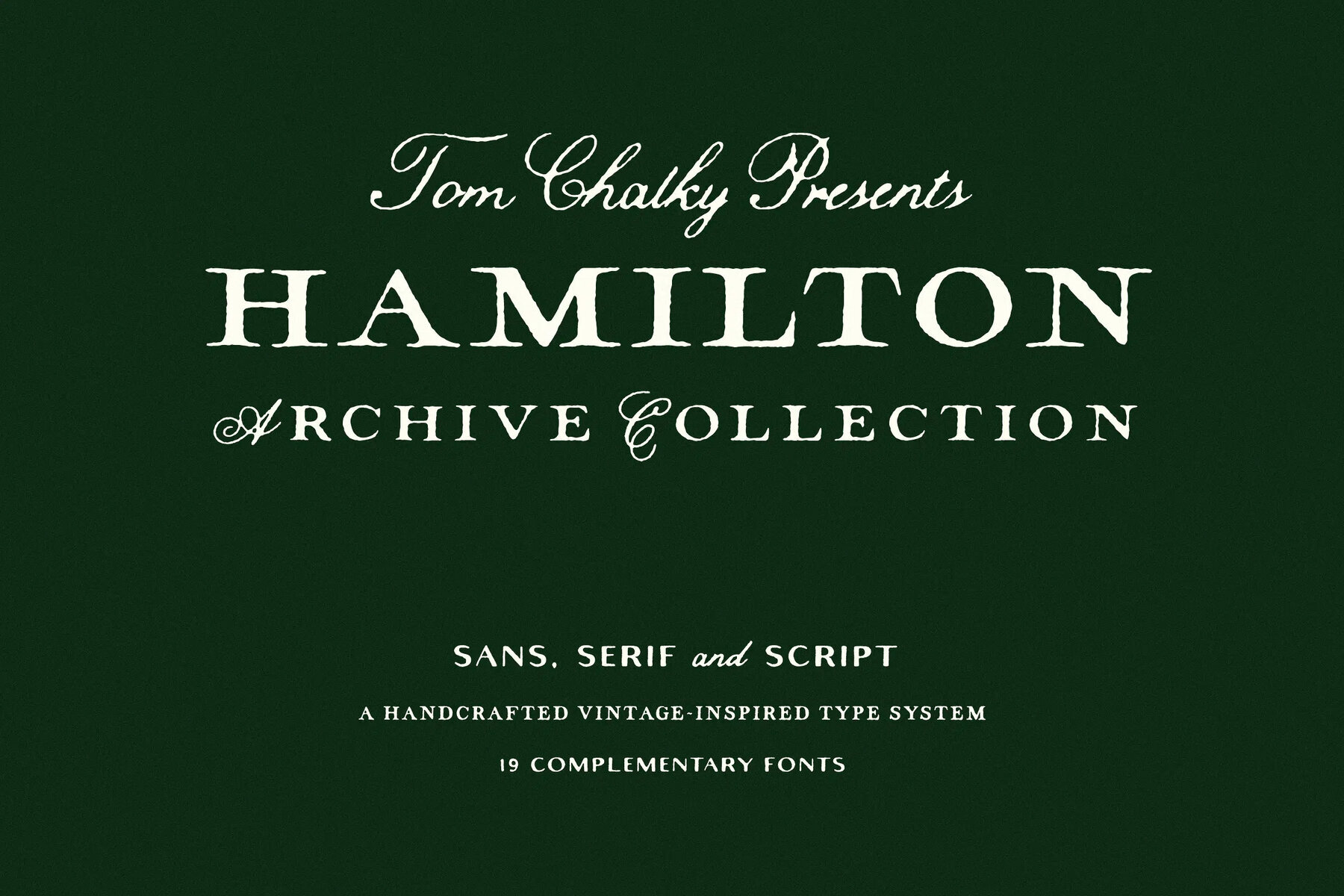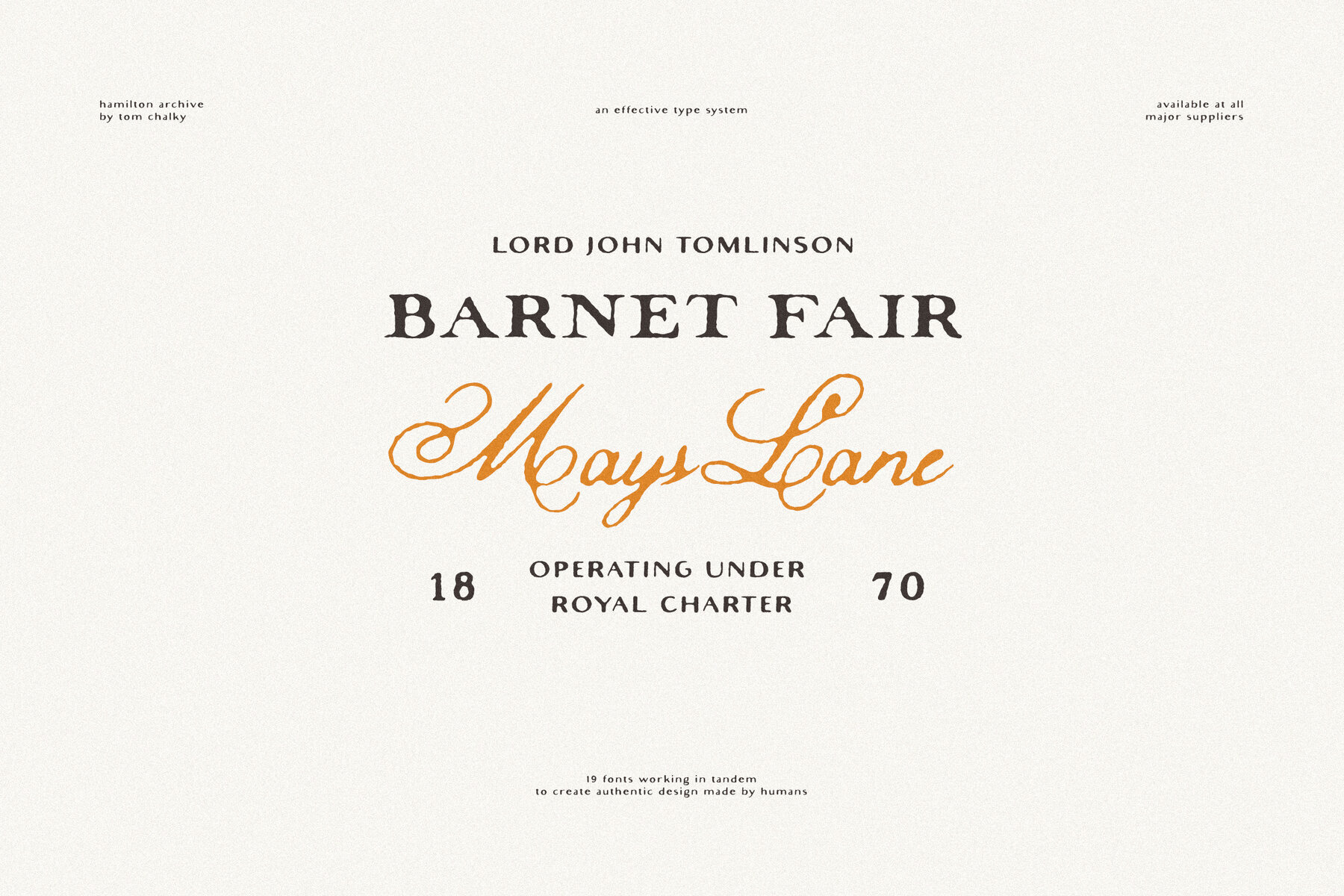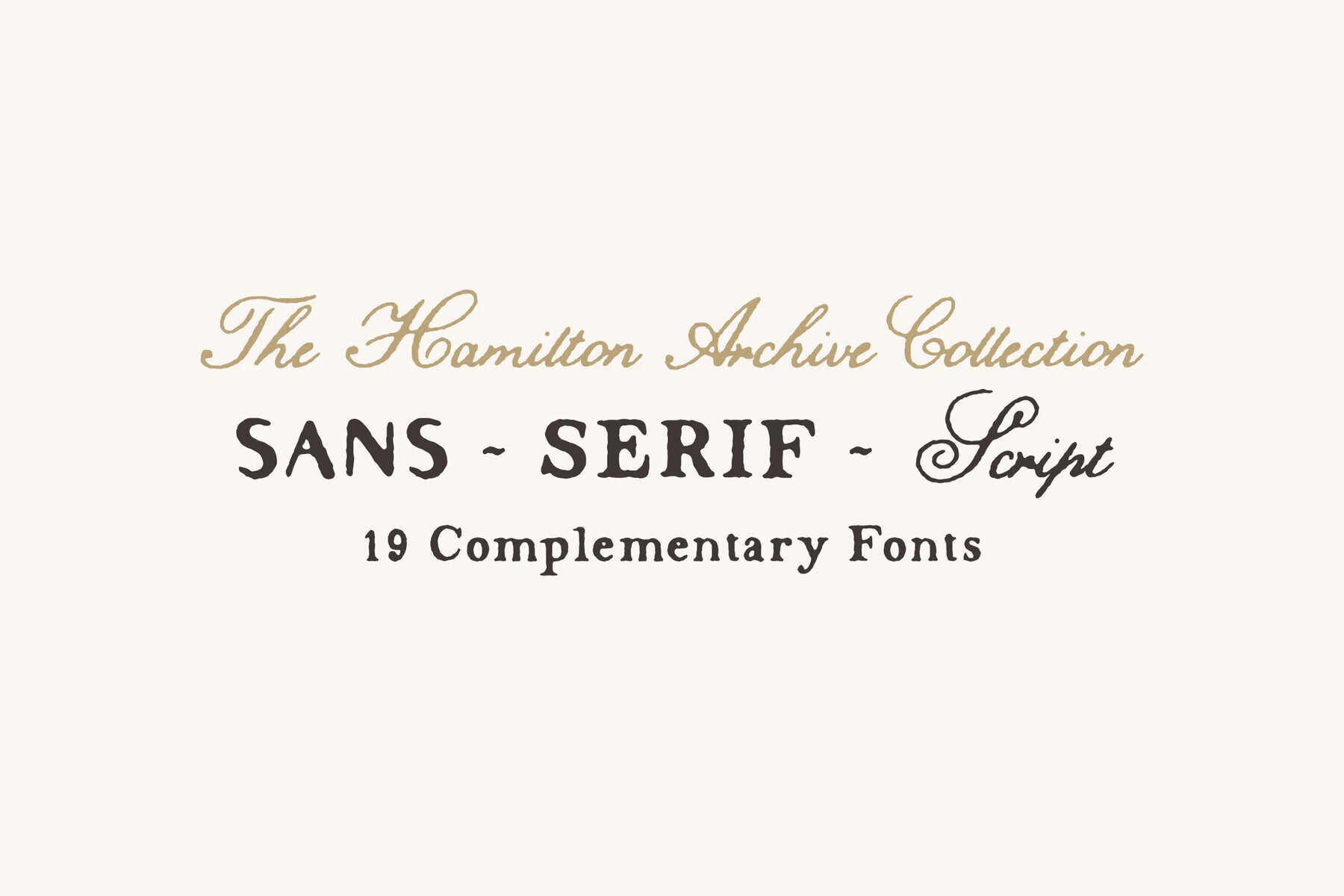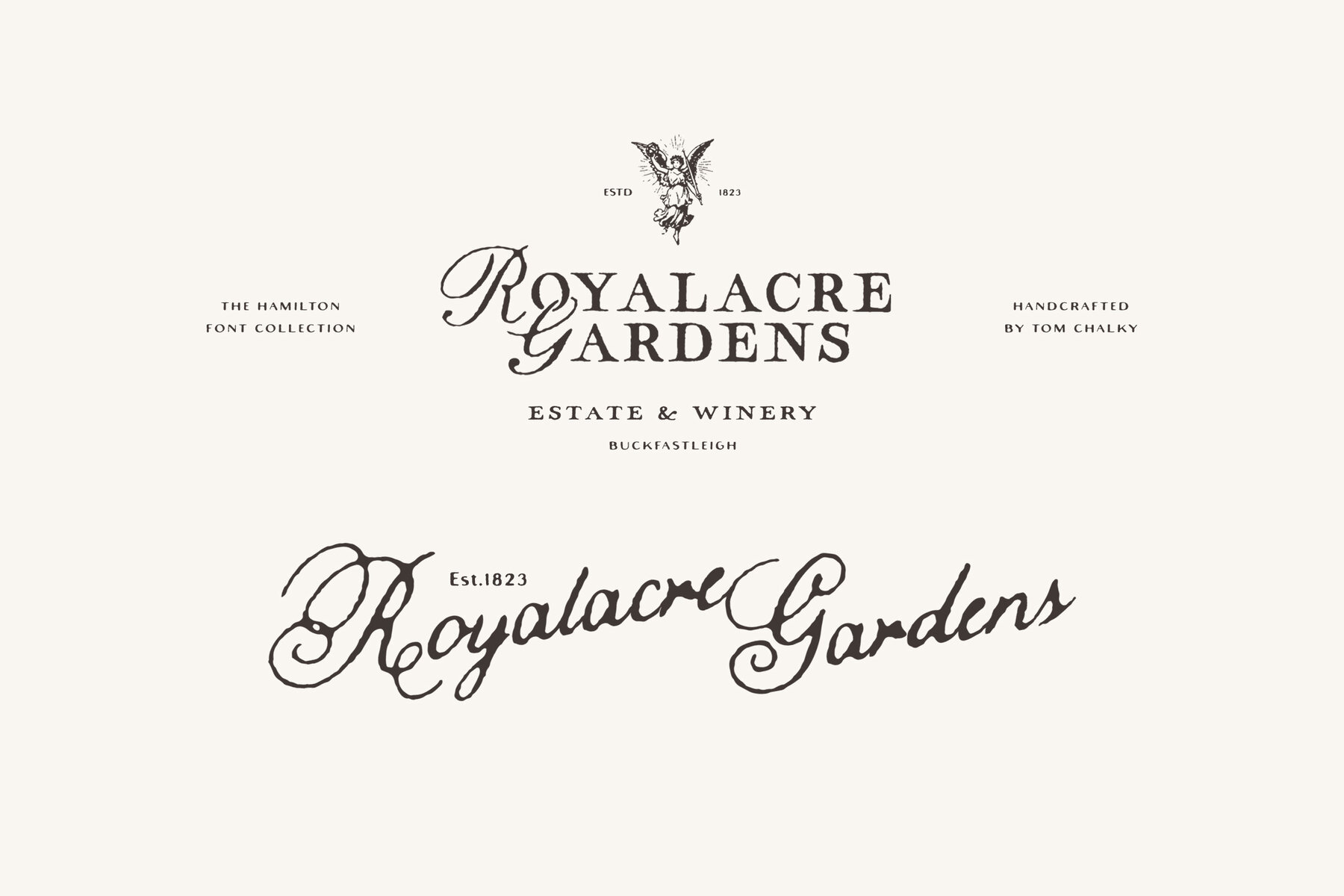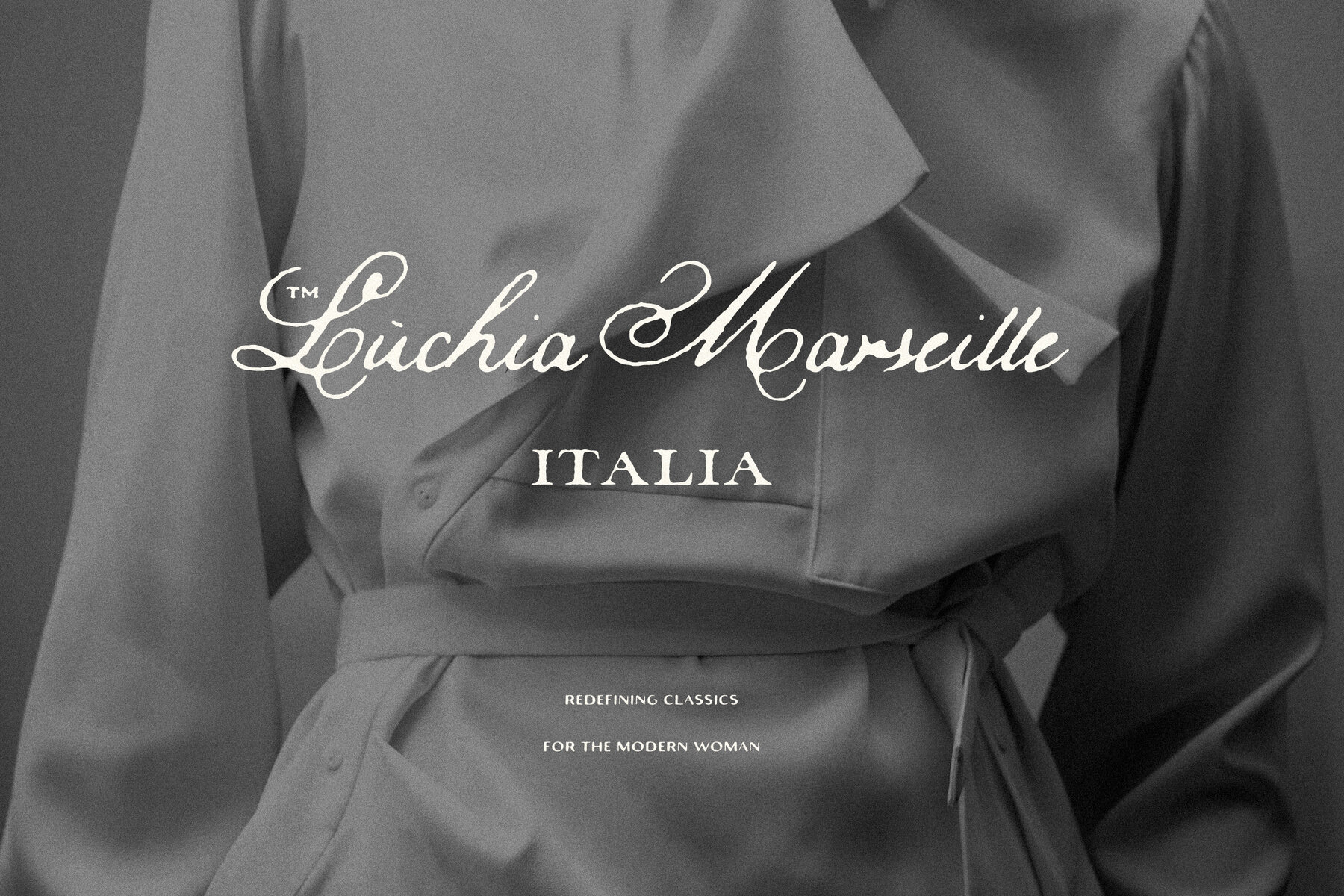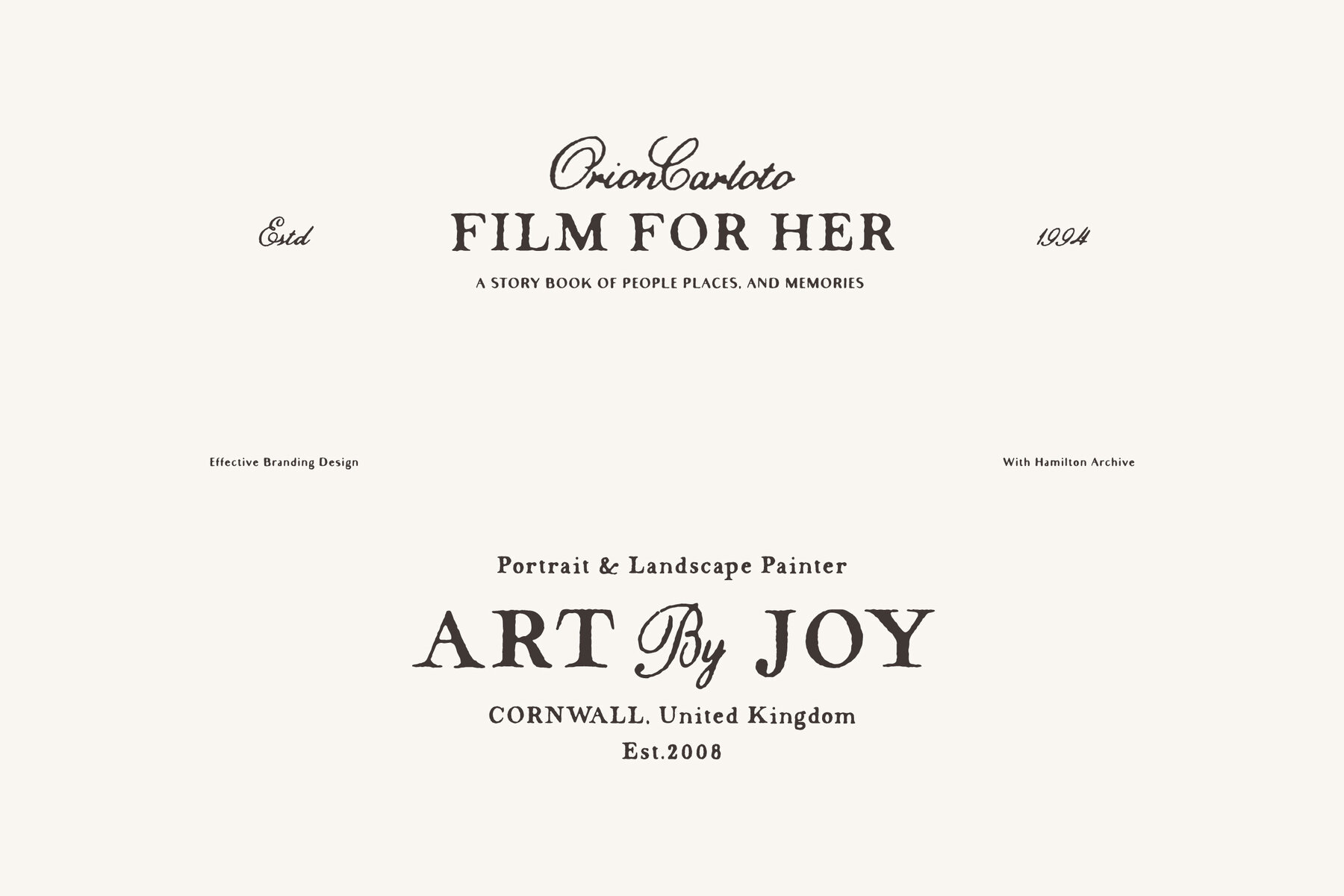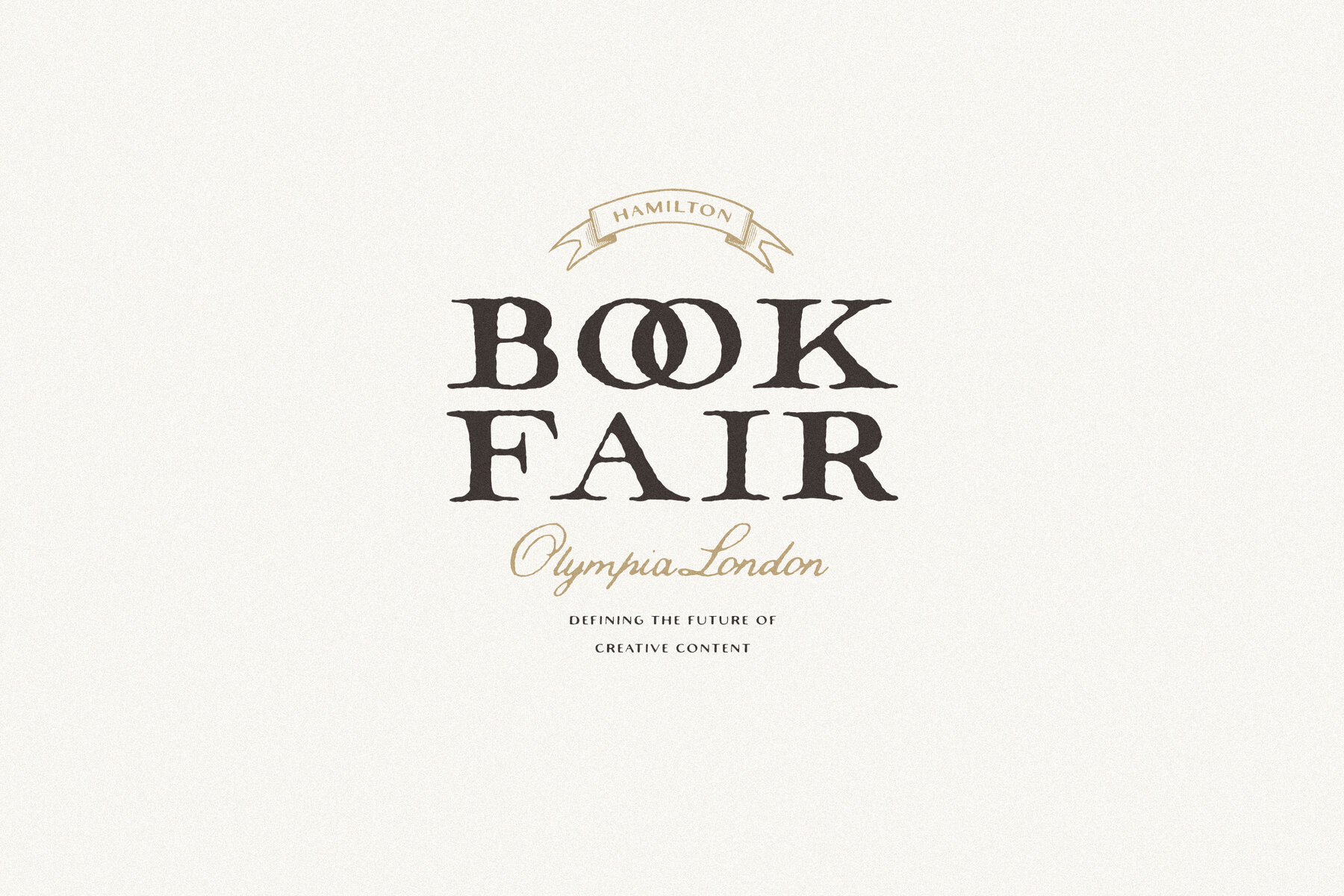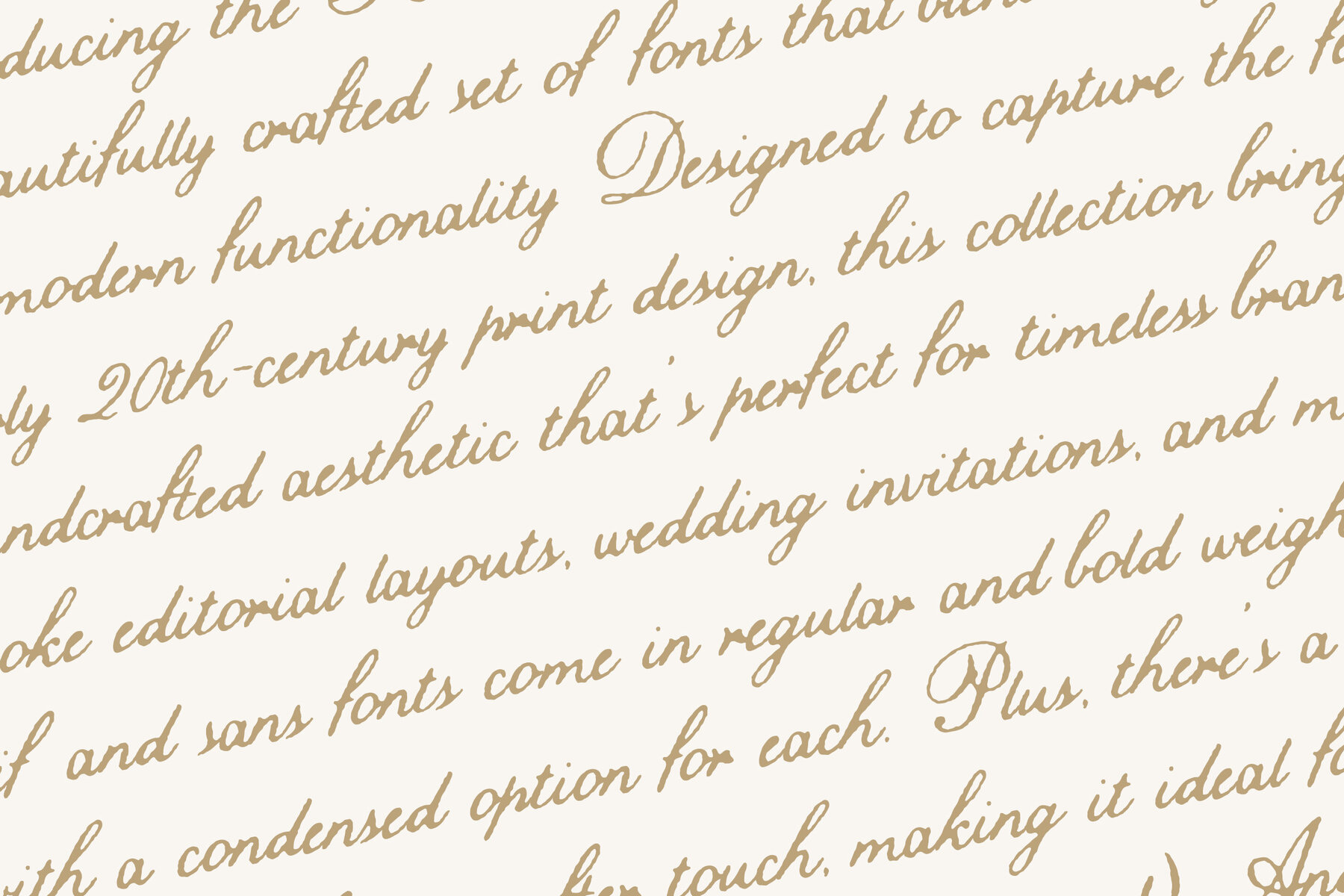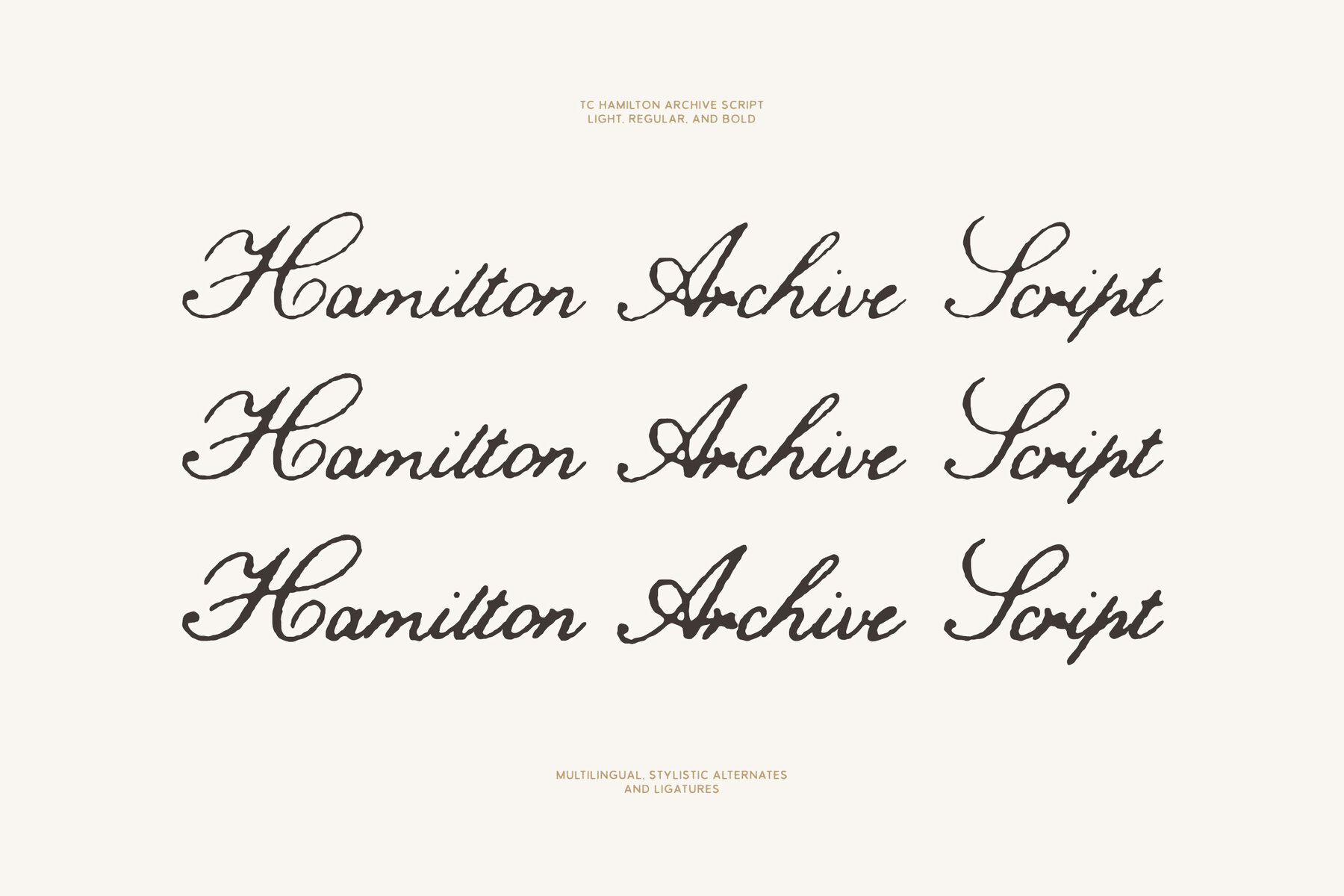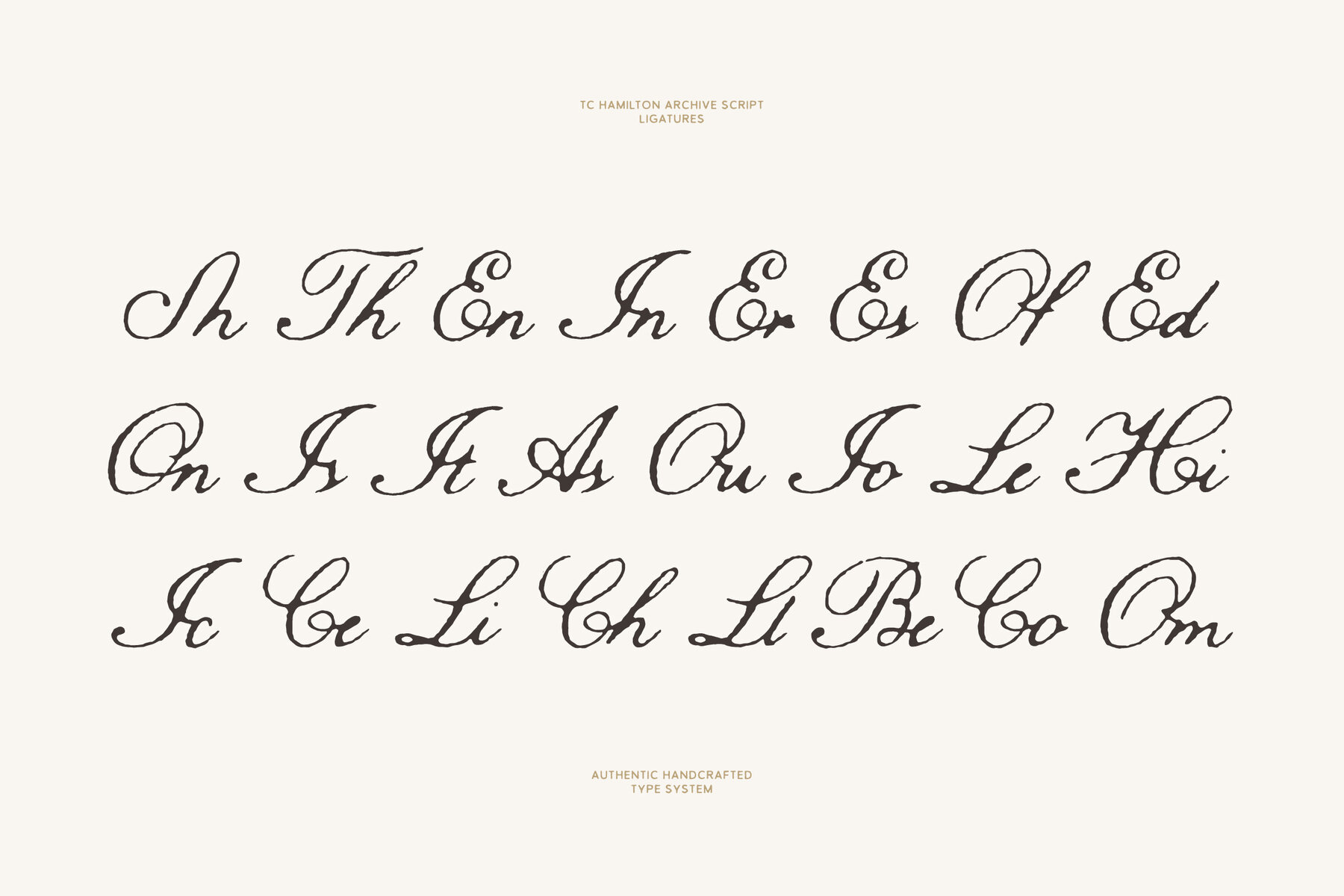
TC Hamilton Archive Collection Font
Introducing the Hamilton Archive Font Collection—a beautifully crafted set of fonts that blend vintage charm with modern functionality Designed to capture the feel of early 20th-century print design, this collection brings a handcrafted aesthetic that’s perfect for timeless branding, bespoke editorial layouts, wedding invitations, and more. The serif and sans fonts come in regular and bold weights, along with a condensed option for each. Plus, there’s a 'Small' style that offers a softer touch, making it ideal for smaller text (but works great for larger type too!). And we can’t forget the stunning handwritten script, available in light, regular, and bold. It adds a touch of elegance to any project, with beautifully crafted ligatures and stylistic alternates that give off a graceful, antique vibe. If you're looking to infuse your work with a vintage-inspired, handcrafted feel, the Hamilton Archive Collection delivers plenty of authenticity and character.